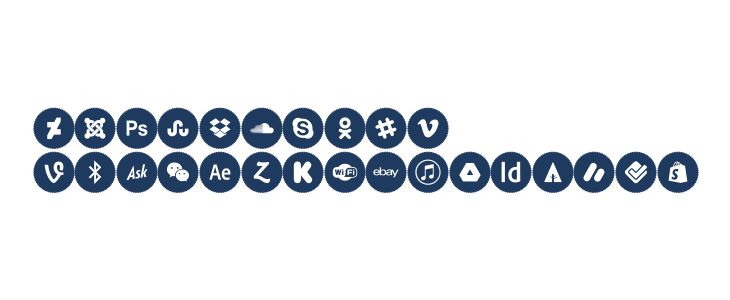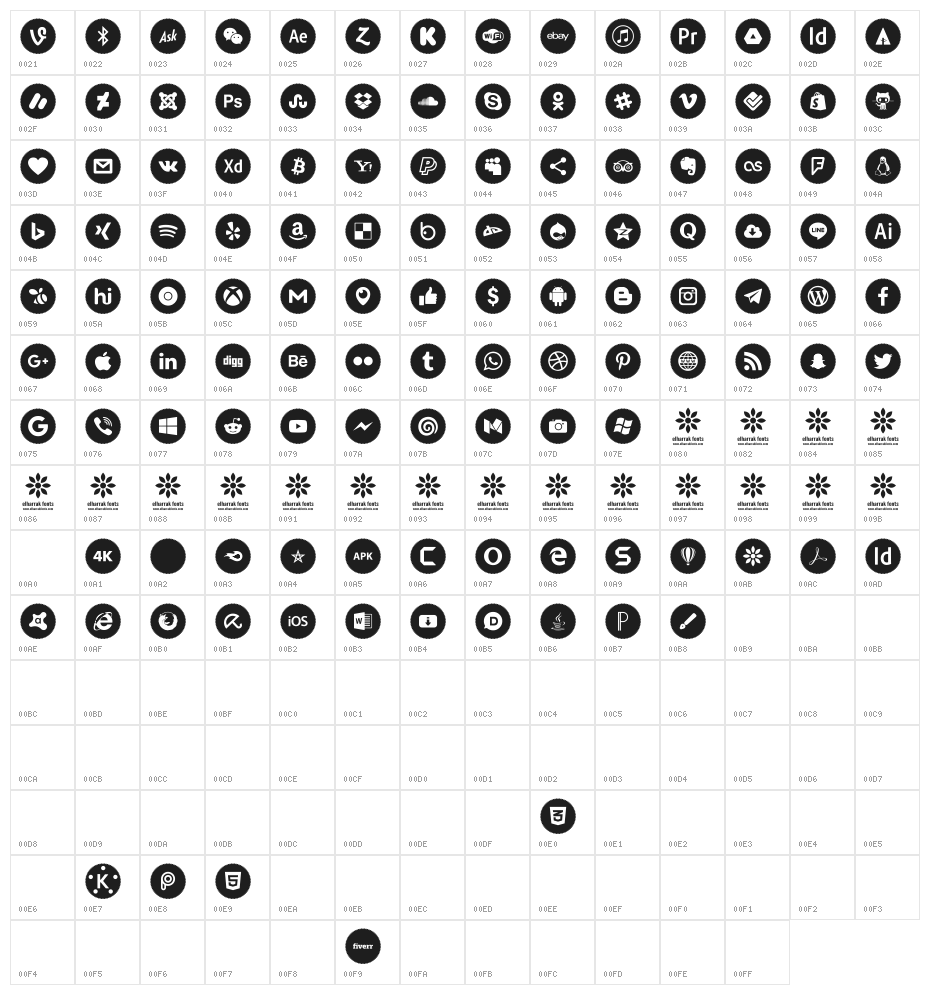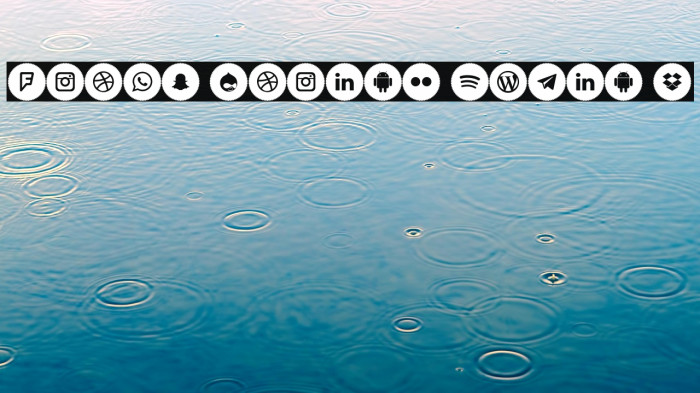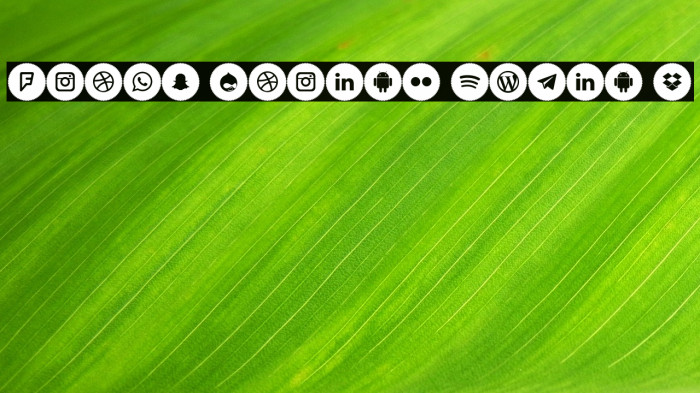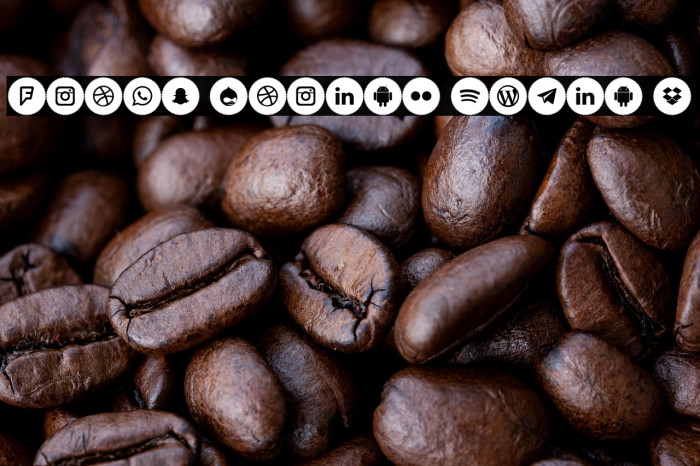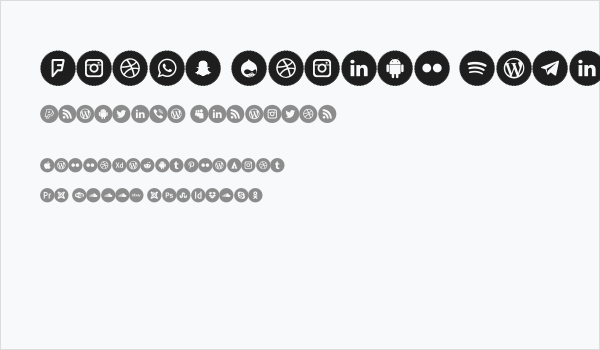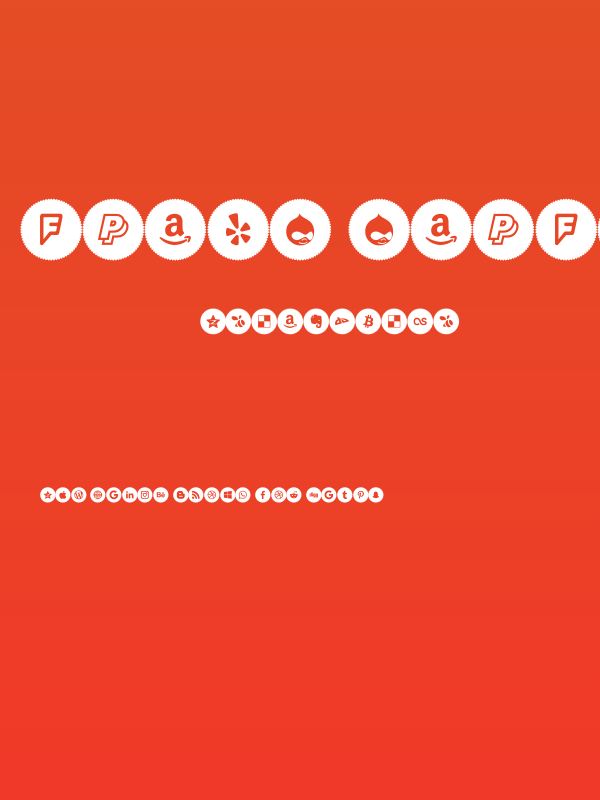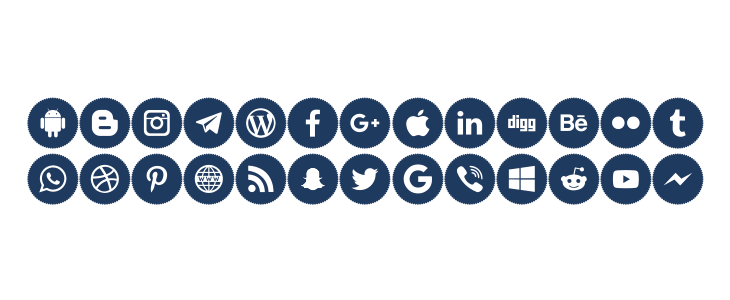
Icons Social Media 4 Font
Icons Social Media 4 Description
A collection of monochrome social media and technology icons enclosed in solid black circular backgrounds, featuring simplified white logos of popular platforms and services.
| Overall Style | Modern, Minimalist |
| Use Case | Icons for social media links, buttons, and branding elements. |
| Proposed Projects | Use in websites, apps, presentations, and marketing materials to represent social media links or technology brands. |